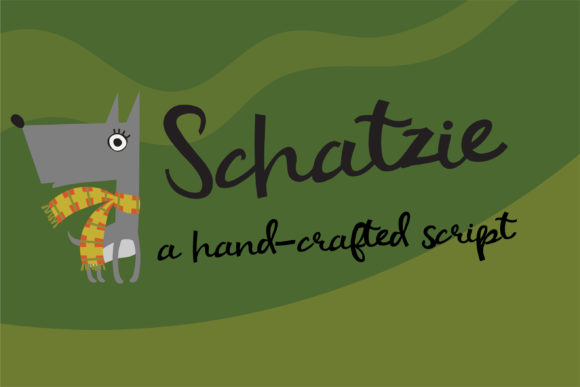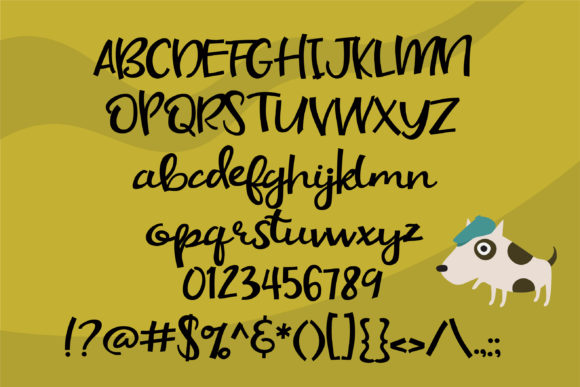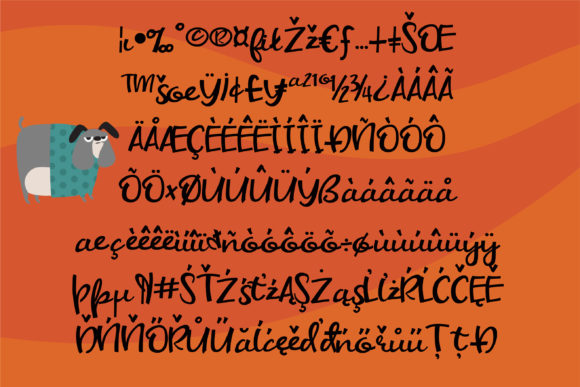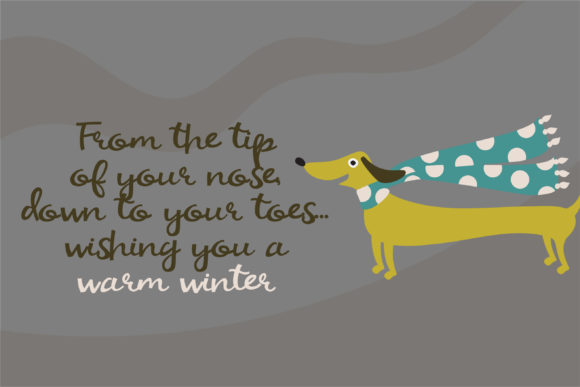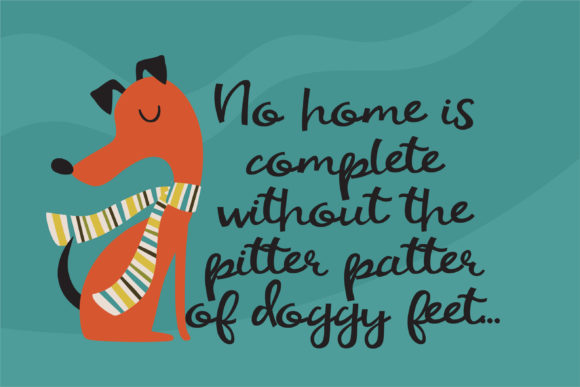
Schatzie Font
About Schatzie Font
The hand-crafted script under consideration is a masterfully designed typeface that effortlessly exudes a casual and laid-back ambiance, perfect for infusing a distinctive homemade touch into your creative projects. This script stands as a testament to the artistry of handcrafting fonts, capturing the essence of a relaxed and approachable style that resonates with a wide range of audiences.
What sets this hand-crafted script apart is its ability to convey an informal and genuine feel, creating a visual language that is both comforting and welcoming. The typeface’s casual charm adds a layer of authenticity, suggesting a personal touch akin to the warmth of handmade creations. It’s not just a font; it’s a design element that encapsulates the sentiment of DIY craftsmanship.
This script is a versatile choice that adapts seamlessly to various design projects, whether digital or print. Its capacity to evoke a sense of familiarity makes it particularly well-suited for conveying a cozy, homely atmosphere in a range of creative applications. From greeting cards to invitations, posters, social media graphics, and beyond, this script imparts a unique and genuine character to every project it graces.
In the realm of design, where personal connections are paramount, this hand-crafted script becomes an invitation to engage. Its casual feel serves as a visual bridge, inviting viewers to connect with the content on a deeper, more personal level. Each character, meticulously crafted with a laid-back aesthetic, contributes to the creation of a visual narrative that feels like a genuine expression of care and effort.
In essence, this hand-crafted script is more than just a font; it’s a design philosophy that brings the essence of handcrafted authenticity to your projects. With 400 words, it’s a canvas that allows you to paint a rich tapestry of genuine, approachable, and welcoming visuals. In a world often dominated by digital precision, this script stands as a refreshing reminder of the beauty found in the imperfect, the handcrafted, and the casually charming. Whether you’re creating a homemade label, a personalized invitation, or a cozy social media post, this script is your ally in crafting an authentic and heartfelt visual experience.